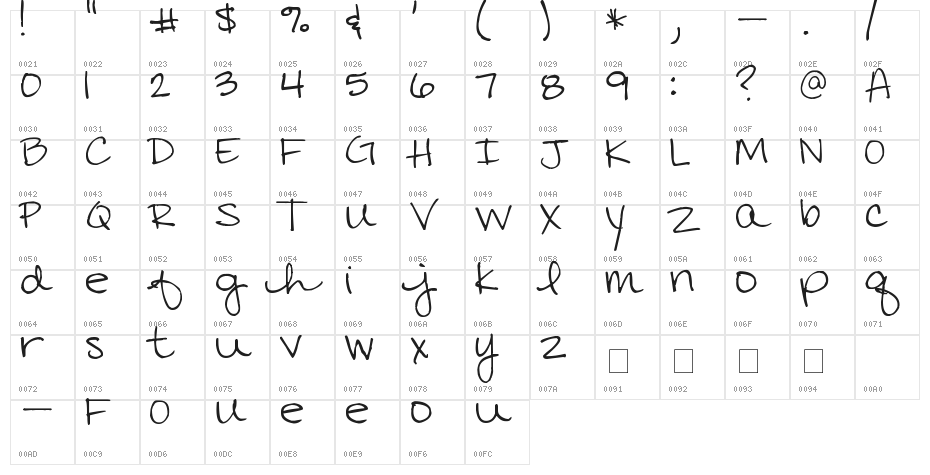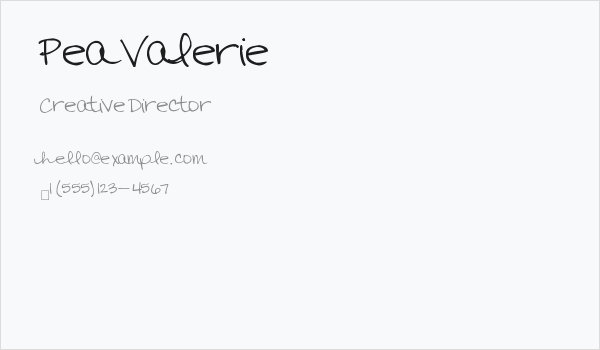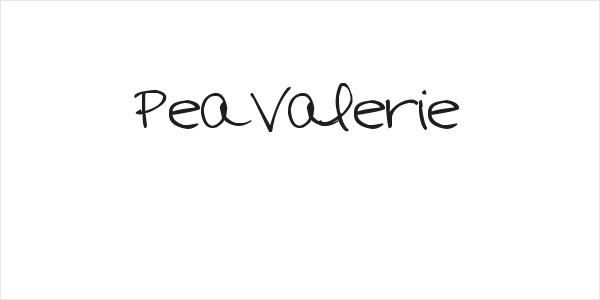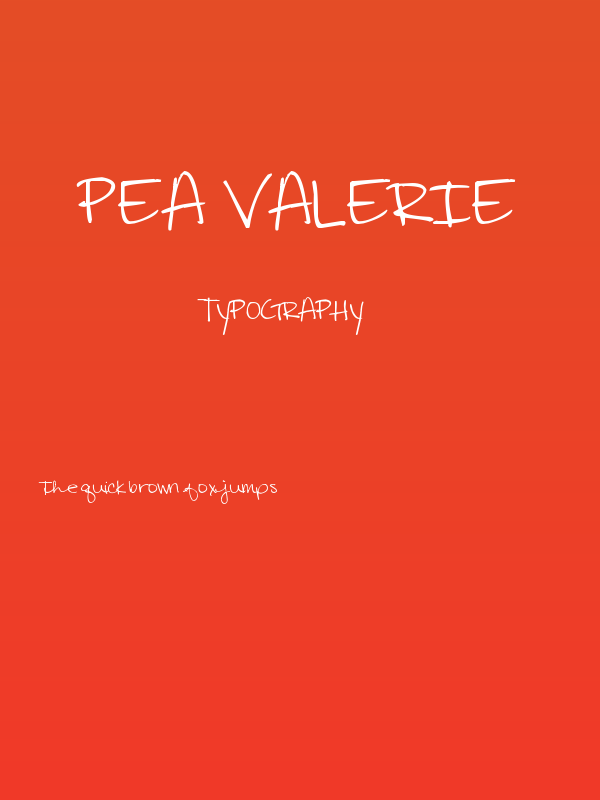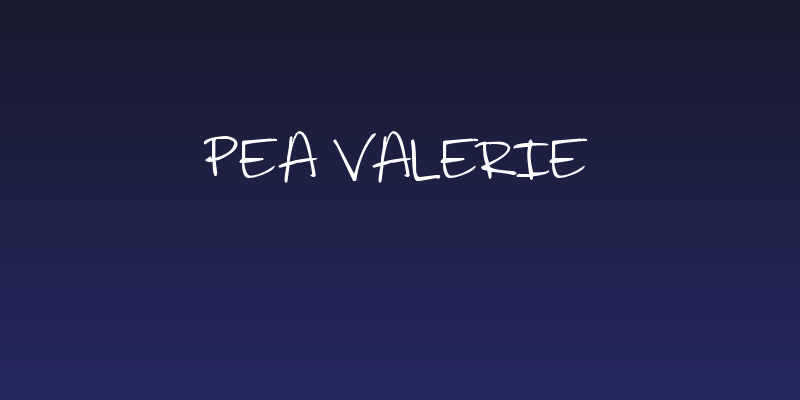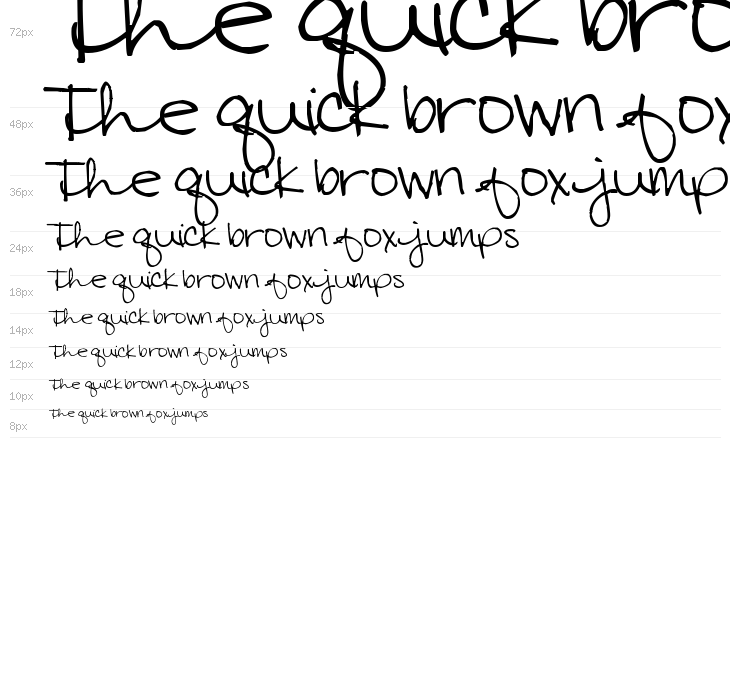
Pea Valerie Font
Pea Valerie Description
This font exudes a casual and playful handwritten style, characterized by its irregular and free-flowing strokes. The letters are slightly slanted, giving it a dynamic and lively appearance. The uppercase and lowercase letters maintain a consistent style, with rounded edges and a natural, organic feel. The numbers and special characters follow the same handwritten aesthetic, ensuring uniformity across all glyphs. This font is perfect for projects that require a personal touch, such as greeting cards, invitations, or informal branding materials. Its unique style makes it stand out, while still being legible and approachable.
| Use Case | Headlines, Informal text, Personal projects |
| Proposed Projects | Ideal for greeting cards, invitations, informal branding, and personal projects. |